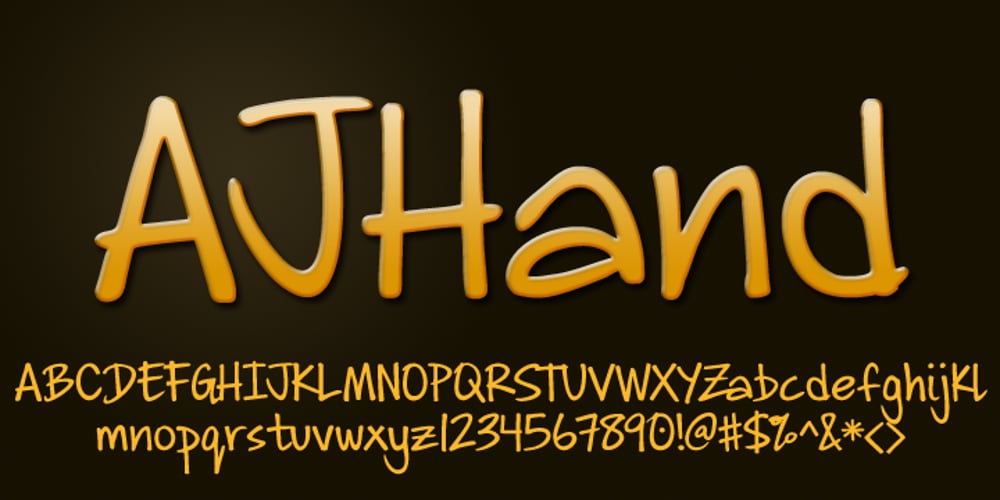
AJHand
AJHand font
AJHand Font Family was designed by Alec Julien and published by Haiku Monkey. AJHand contains 2 styles and family package options. AJHand is a confident font based on the designer’s own handwriting. It was designed initially to be a font used for chord symbols for jazz and pop music charts, but here has been crafted for general use. Recommended for use wherever an informal font with flair is called for.